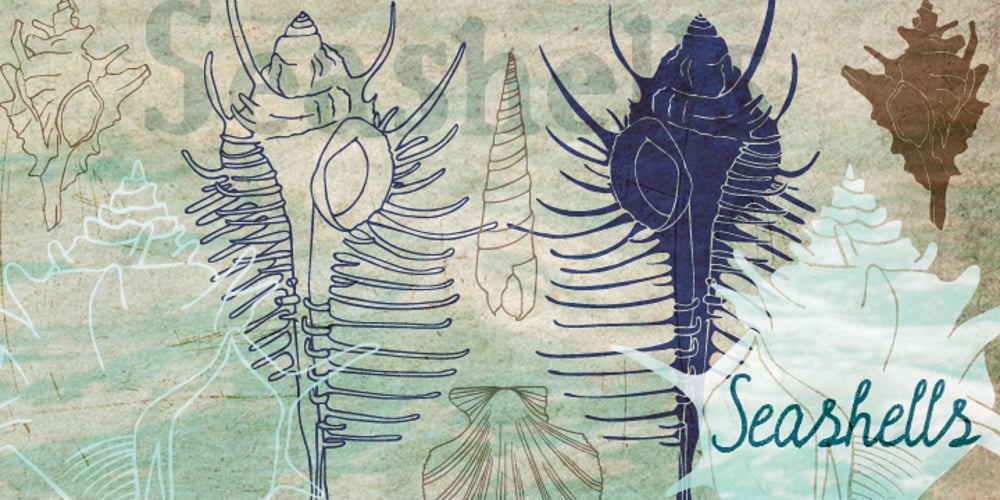
Seashells
Seashells font
Seashells Font Family was designed by Natsuko Hayashida and published by Okaycat. Seashells contains 1 styles and family package options. Seashells is a picture font, containing all pretty sea shells. Each shell appears in outline form and also as a solid graphic.